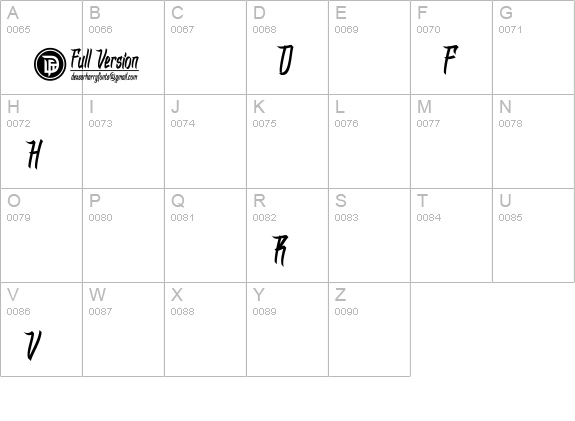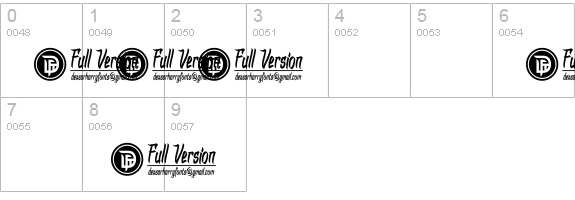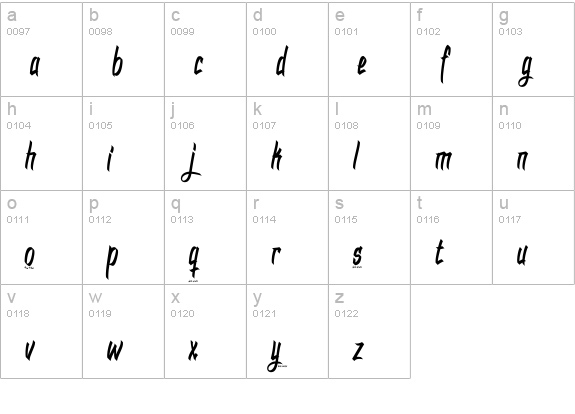
DHF Dexgraffiti Return Font Details
Introducing DHF Dexgraffiti Return, a stunning font that effortlessly captures the essence of urban artistry. With its bold and dynamic design, this font is perfect for creating eye-catching headlines, striking logos, and captivating designs that demand attention. DHF Dexgraffiti Return is a free font that embodies the rebellious spirit of graffiti culture, allowing you to bring its edgy and energetic vibe to your creative projects. Whether you're a graphic designer, a street artist, or simply someone who appreciates the raw and expressive nature of graffiti, this font is sure to inspire and elevate your work. The striking letterforms of DHF Dexgraffiti Return are meticulously crafted to evoke the spontaneity and fluidity of spray paint on a city wall. Each character is infused with a sense of movement and intensity, giving your designs an authentic urban feel. This font is freely available to download at FontsMarket.com, a trusted source for high-quality fonts. With just a few clicks, you can unleash the power of DHF Dexgraffiti Return and infuse your designs with the energy and creativity of the streets. So, whether you're designing a poster for a music event, creating a logo for a streetwear brand, or adding a touch of urban flair to your social media posts, DHF Dexgraffiti Return is the perfect choice. Download it today and let your creativity run wild with this free font that brings the vibrant spirit of graffiti to life.